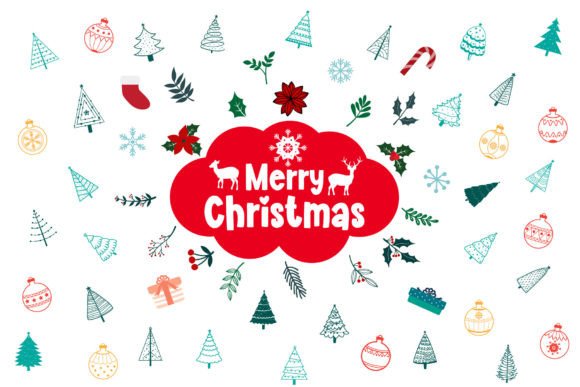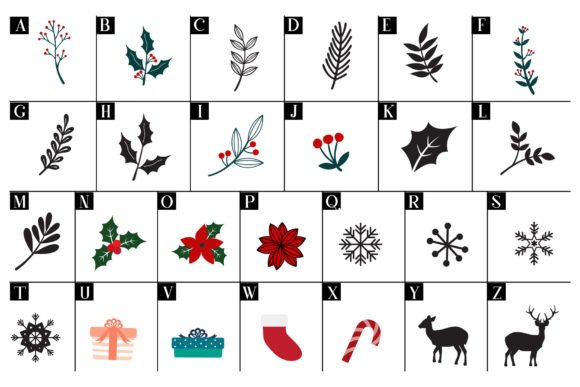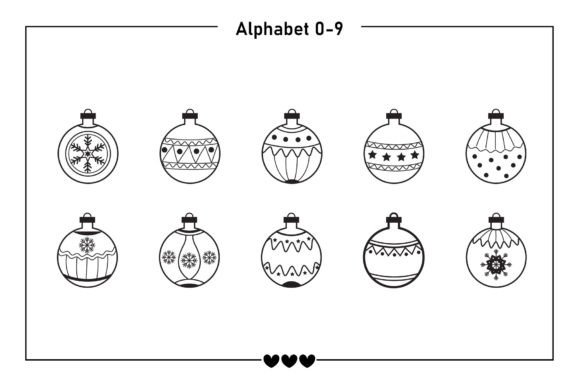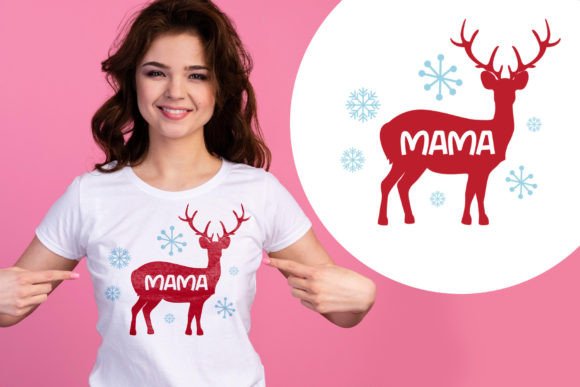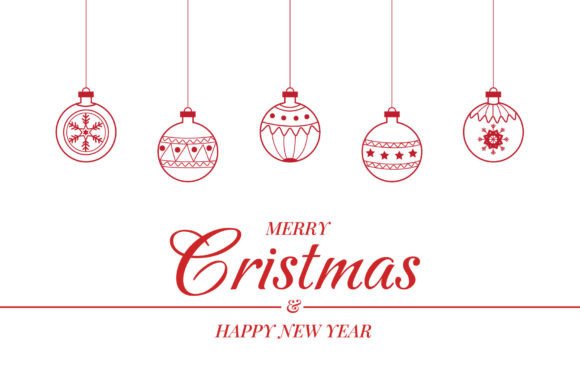
Merry Christmas Font
About Merry Christmas Font
Introducing the Merry Christmas dingbat font, a delightful addition to your holiday design toolkit. This cute and versatile font is specially crafted for the Christmas season, allowing you to add a touch of festive cheer to all your creative projects.
The Merry Christmas font features a collection of doodle-style dingbats, including adorable illustrations of Christmas trees, ornaments, Santa Claus, reindeer, presents, and more. These charming characters capture the essence of the holiday season and are perfect for adding a joyful and whimsical element to your designs.
One of the unique features of the Merry Christmas font is its versatility. It comes in two variations: a color font and a font that allows you to freely change the color. The color font option gives you ready-to-use vibrant and eye-catching illustrations, while the customizable font option allows you to personalize the color scheme according to your design preferences. This flexibility allows you to create a wide range of visuals that suit your specific project needs.
With Merry Christmas, the possibilities are endless. This font is ideal for a variety of creative endeavors, including crafting, designing greeting cards, creating festive invitations, decorating planners and diaries, designing activity books, and so much more. The charming doodles will instantly bring a sense of joy and merriment to your creations, making them stand out and evoke the holiday spirit.
Using the Merry Christmas dingbat font is easy. Simply type the corresponding characters on your keyboard, and the charming illustrations will appear. Whether you’re creating a Christmas-themed poster, designing holiday-themed social media graphics, or crafting personalized gift tags, this font will save you time and effort while adding a delightful touch to your designs.
So, let the Merry Christmas dingbat font be your go-to tool for all your holiday design needs. Embrace the festive spirit, spread joy, and capture the magic of Christmas with this cute and versatile font. Add it to your creative ideas, and watch your designs come to life with the warmth and charm of the holiday season.